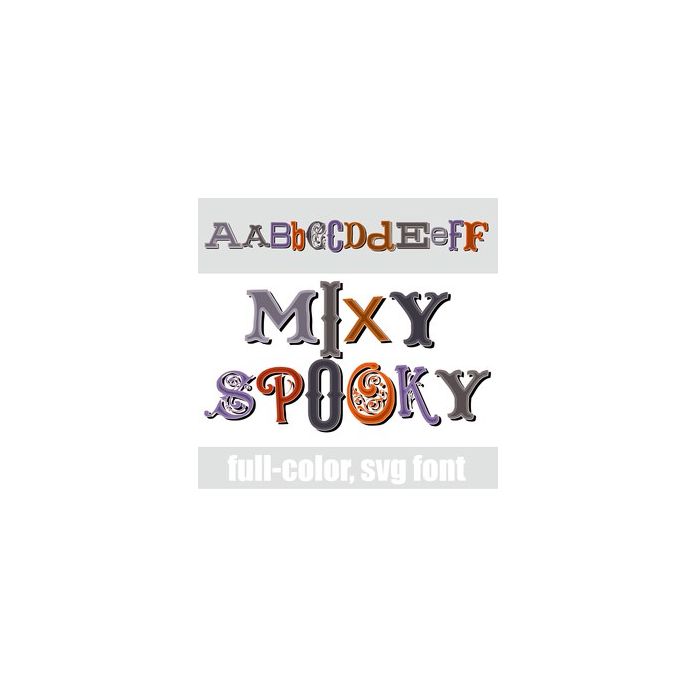
This full-color font features a mix of font styles in a Halloween color palette. There is an alt case w/ additional colors you can access through your system or Silhouette's glyph map.